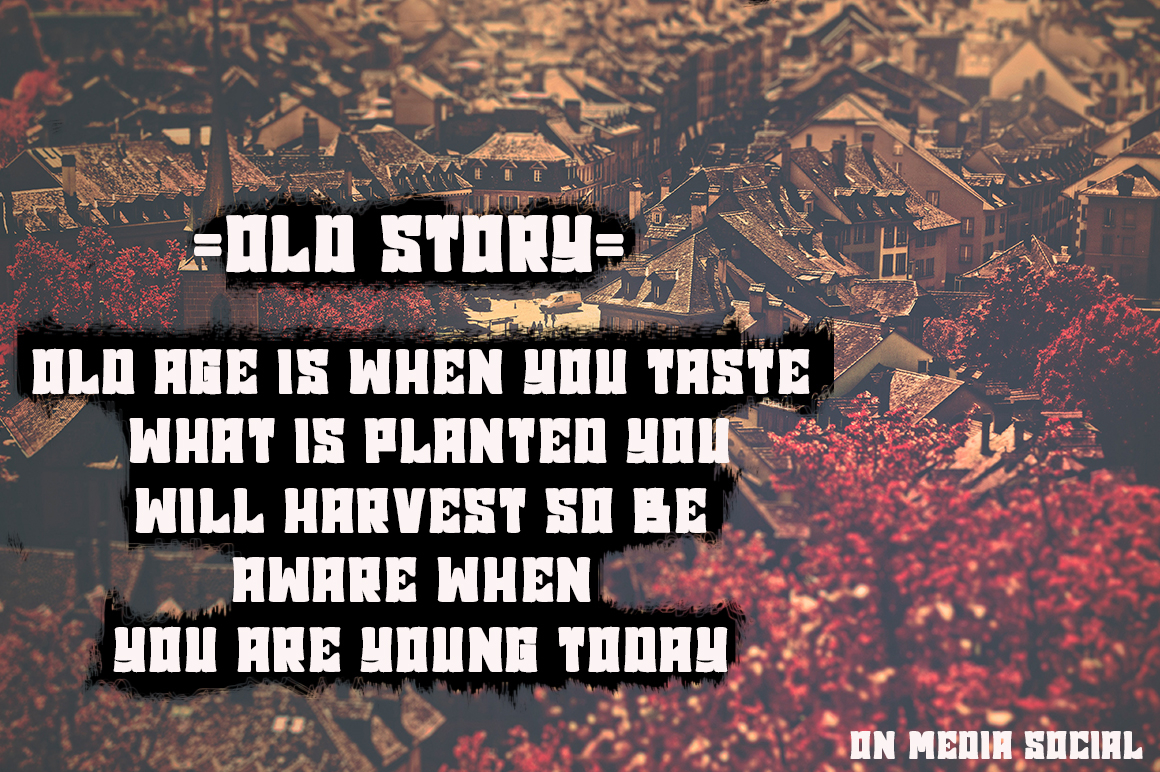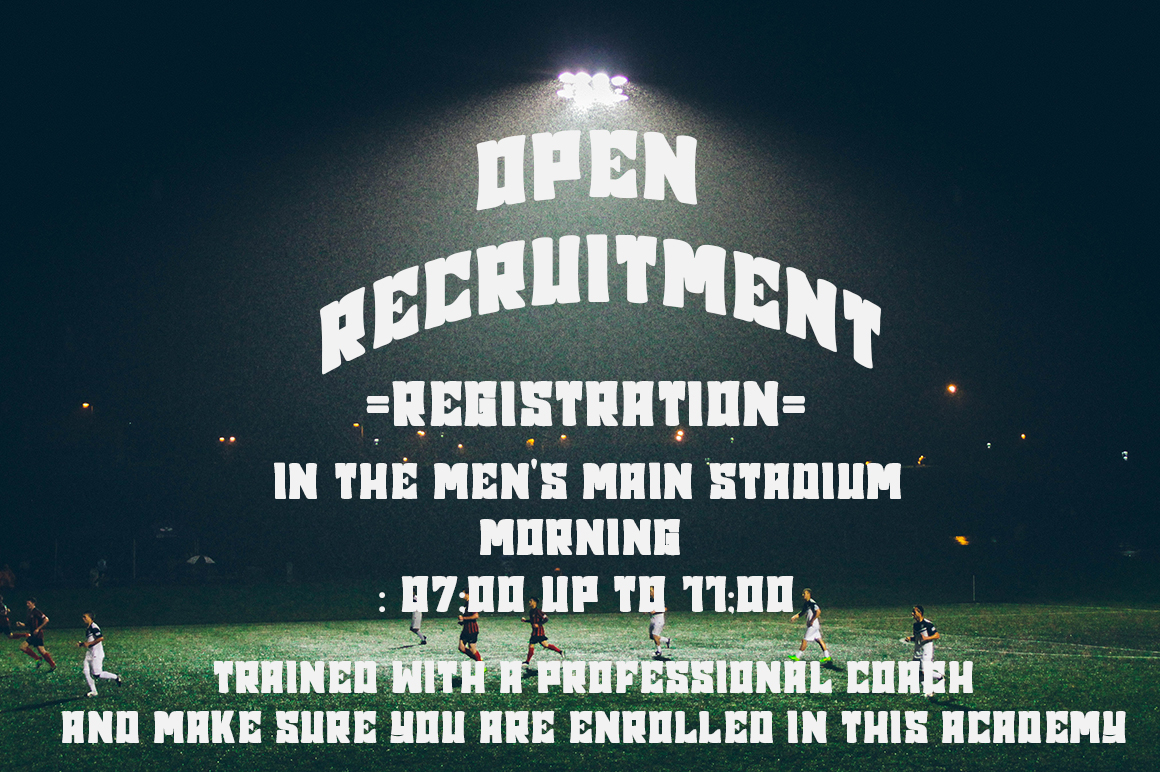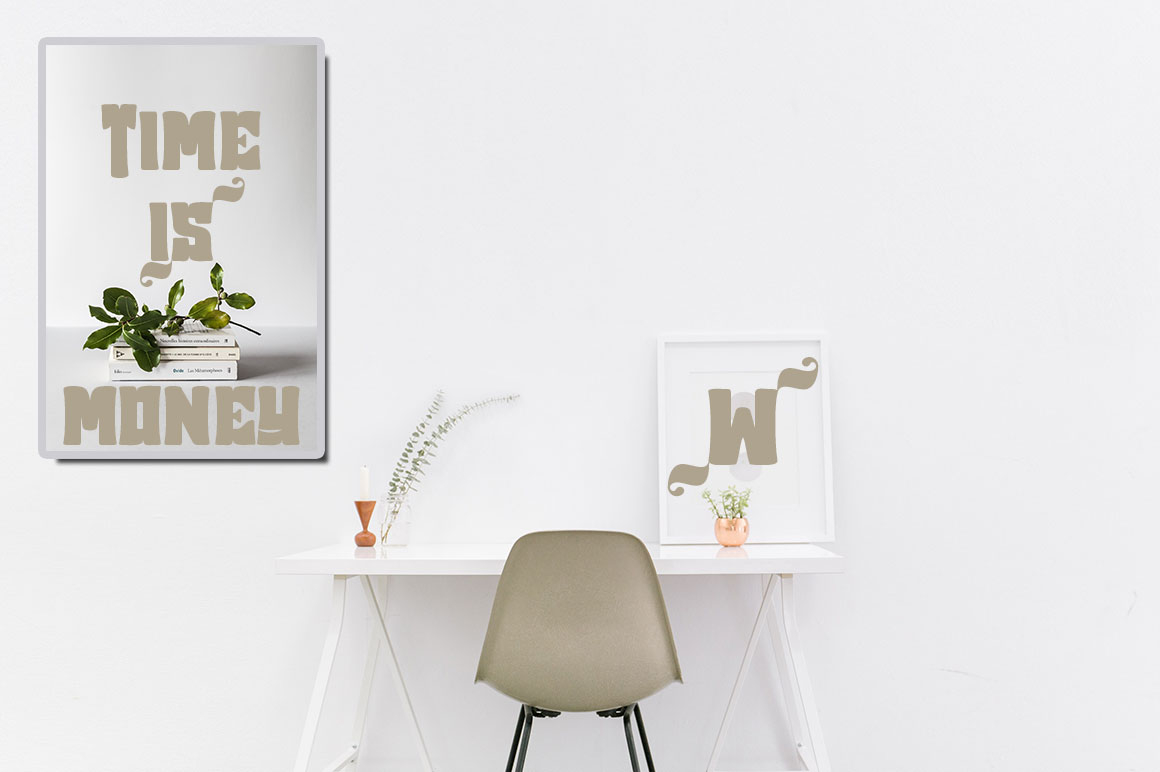
About Rocker Stage Font
Rocker stage is a bold and chunky lettered blackletter font. Masterfully designed to become a true favorite, this font has the potential to bring each of your creative ideas to the highest level!